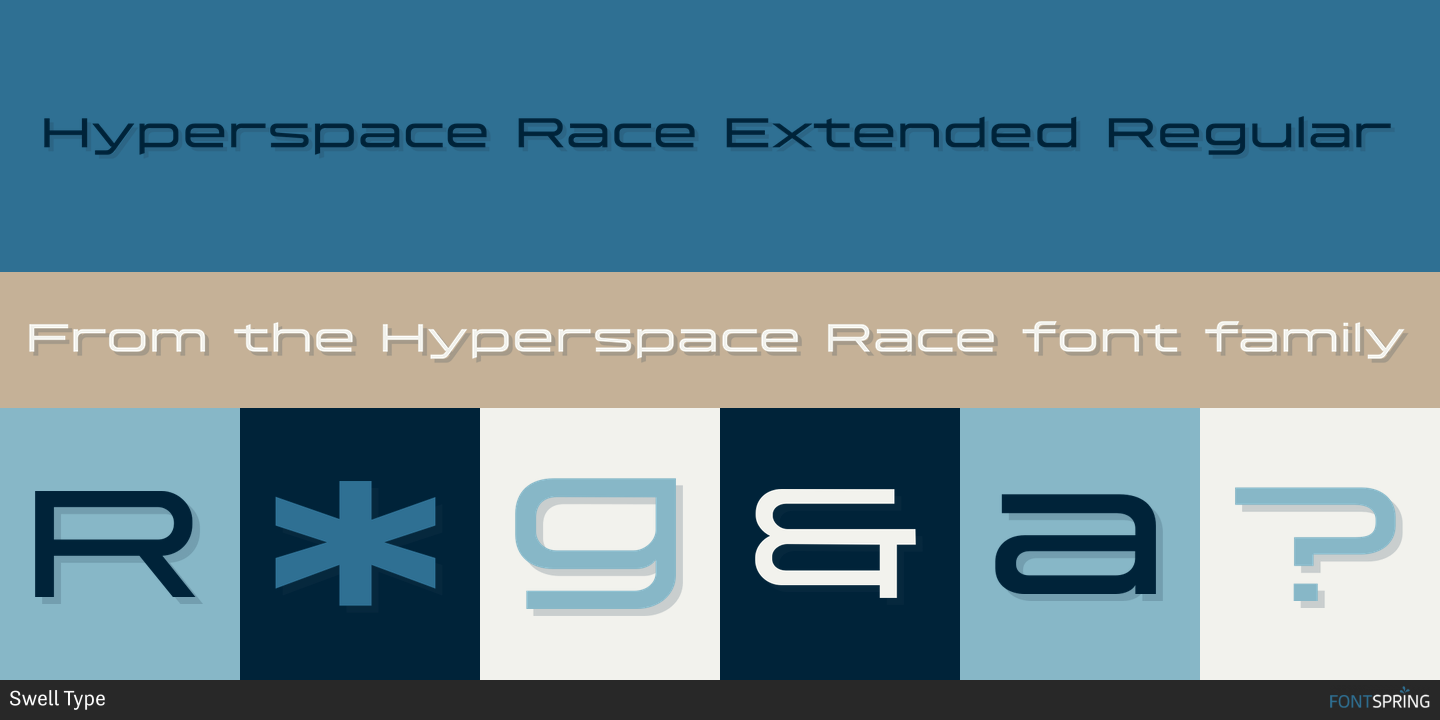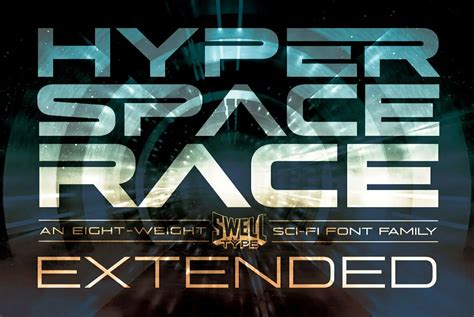
Hyperspace Race Heavy Font Free Download - Web explore hyperspace race variable designed by john roshell at adobe fonts. Votes, rated based on results identification. A sans serif typeface with 2 styles, available from.